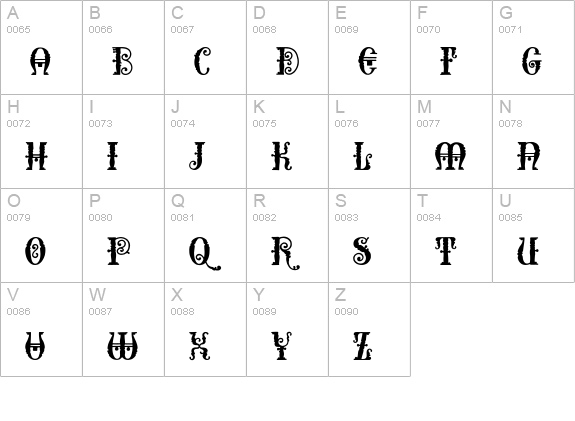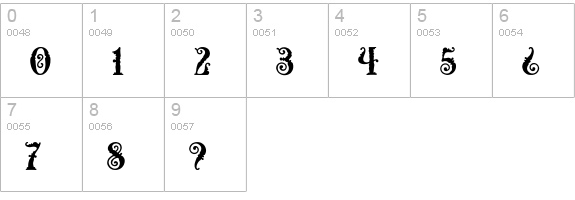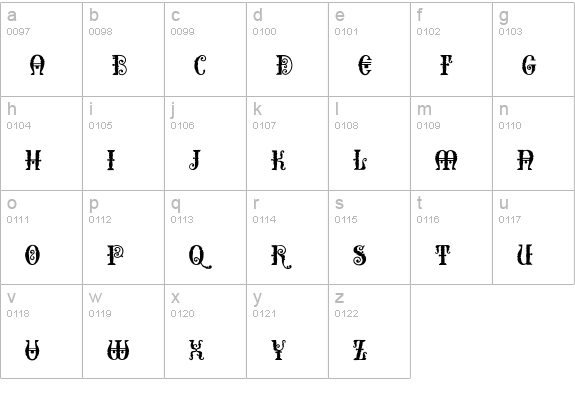
Erotokritos Font Details
The Erotokritos font is a beautifully designed typeface that exudes elegance and sophistication. Its sleek lines and graceful curves make it perfect for a wide range of design projects, from wedding invitations to luxury branding. With its timeless appeal and classic style, Erotokritos is sure to add a touch of refinement to any project. What makes Erotokritos even more appealing is that it is available for free download at FontsMarket.com. This means that you can easily access this stunning font and use it in your design projects without any cost. Whether you are a professional designer looking for a new addition to your font collection or a hobbyist looking to add a touch of class to your creations, Erotokritos is the perfect choice. Don't miss out on the opportunity to enhance your designs with the exquisite Erotokritos font. Download it for free today at FontsMarket.com and start creating stunning pieces that are sure to impress.